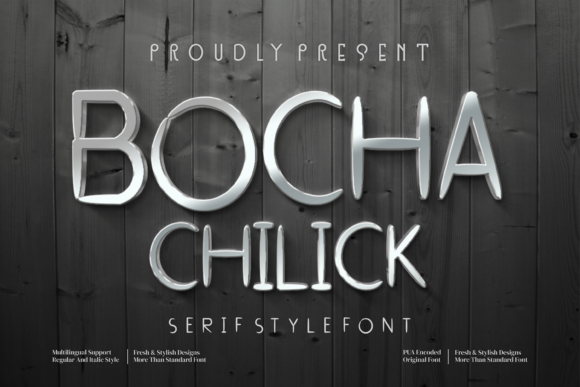
Remember that moment when a single design element brought your entire project together? You’ve probably experienced it before, but it’s always a thrill to see how a small detail can make a big impact. For designers, finding the right font can be the key to elevating their work and taking it to the next level. That’s where the Bocha Chilick Font comes in – a sleek and modern sans serif font that’s perfect for a wide range of creative projects.
With its clean lines and minimal aesthetic, the Bocha Chilick Font is an excellent choice for designers who want to create a professional and polished look without sacrificing style. Its versatility makes it a valuable asset in any design toolbox, and its ease of use means you can focus on bringing your creative vision to life without getting bogged down in font choices.
Bocha Chilick Font Key Features
- Font Family: Bocha Chilick Font is a sans-serif font family, designed for digital use.
- Character Count: Bocha Chilick Font contains a comprehensive set of characters, including uppercase and lowercase letters, numbers, and special characters.
- Size and Resolution: Bocha Chilick Font is designed to be highly legible at various font sizes, from 10 to 24 points, and resolutions up to 300 DPI.
- Unique Characteristics: The font features a clean and modern design, with a unique blend of geometric and organic elements, making it suitable for a wide range of applications, including digital interfaces, signage, and publications.
Bocha Chilick Font Review
Overall, I think Bocha Chilick is a nice addition to any designer’s toolkit, but it’s not without its quirks. Let’s start with what works well:
- ✨ Beautiful, unique letterforms: Bocha Chilick has a distinctive, hand-drawn feel that’s perfect for adding a touch of personality to your designs.
- ✨ Strong legibility: Despite its decorative feel, Bocha Chilick is surprisingly easy to read, making it a great choice for body text or headings.
- ✨ Plenty of customization options: Bocha Chilick comes with a range of weights, styles, and language support, giving you plenty of flexibility when designing with it.
- ⚠️ Limited range of weights: While Bocha Chilick has a decent range of weights, it’s not as comprehensive as some other fonts, which can make it harder to find the perfect weight for your design.
- ⚠️ Some letters may not be perfect: While Bocha Chilick is generally well-designed, some letters (like the lowercase ‘a’) may not be perfect, which can be a problem if you’re looking for a font with perfect letterforms.
Overall, I think Bocha Chilick is a solid choice for designers who want a unique, hand-drawn feel in their designs. While it’s not perfect, its strengths make it a great addition to any font collection.
Tips for Getting the Most Out of Bocha Chilick Font
Here are some tips to help you get the most out of Bocha Chilick Font:
- Use Bocha Chilick Font for titles and headings to add a touch of elegance to your designs.
- Combine Bocha Chilick Font with other fonts to create a unique and visually appealing typography.